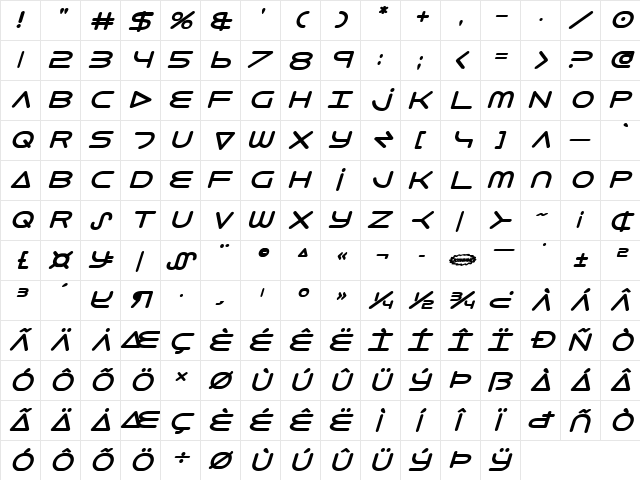
8th Element ExtraBold Italic Font Preview
Design Context for 8th Element ExtraBold Italic Typeface
8th Element ExtraBold Italic is a composed and adaptable typeface that performs quietly and consistently across a wide range of design contexts. The dynamic lean of this cut emphasises speed and emphasis in any layout. Its bold stroke weight gives it real presence on the page.
Pro Tip: Try 8th Element ExtraBold Italic for annotation and caption copy alongside an upright companion — the contrast in angle creates a dynamic but ordered typographic system.